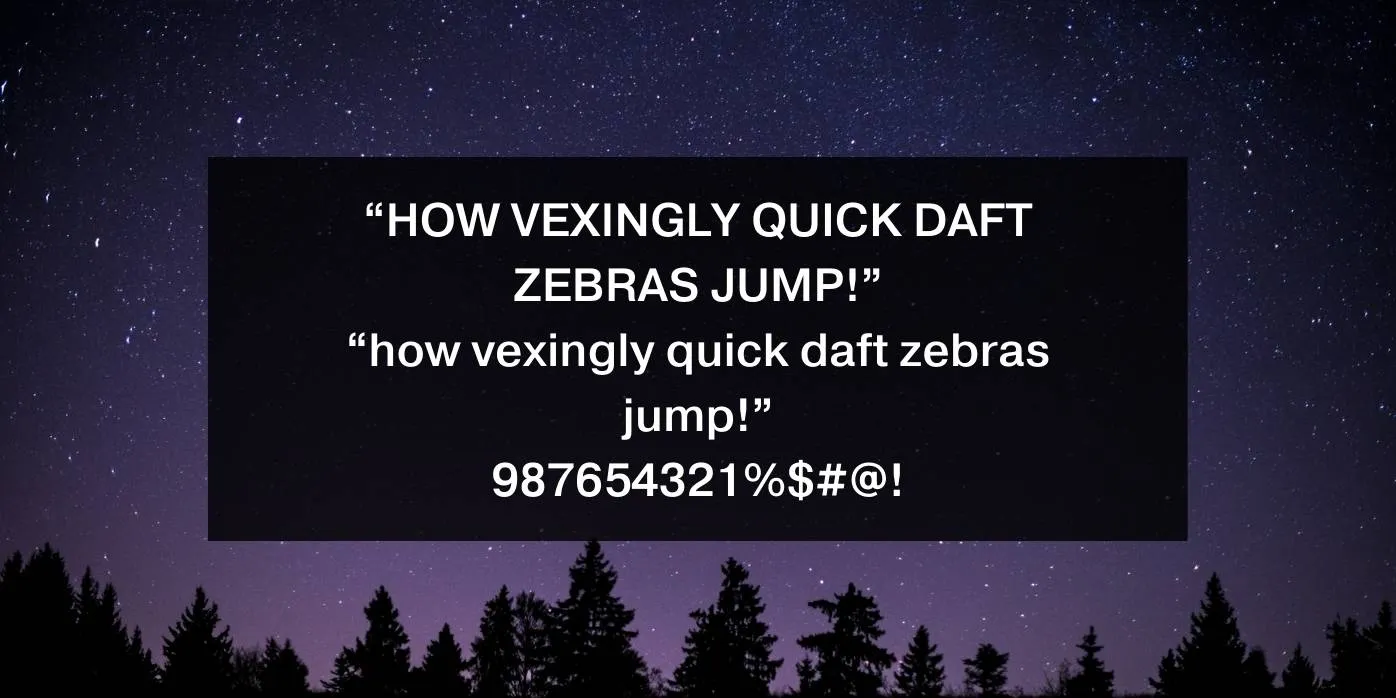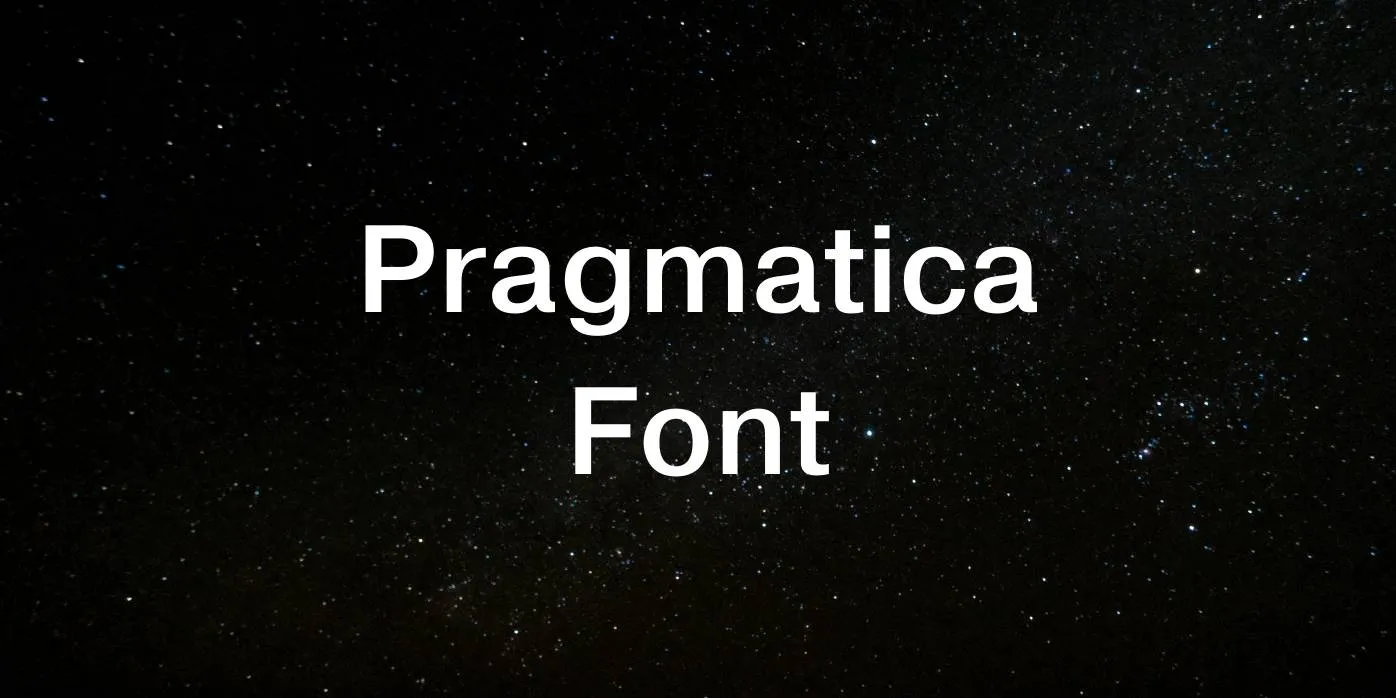
Pragmatica Font
Pragmatica Font is a sans serif typeface that was designed by Vladimir Andreev in the late 1980s. It was released by ParaType in 1990 and is currently used by many companies and organizations, including Microsoft, for a variety of purposes. Pragmatica Font has a simple, modern design that makes it highly legible. It is available in a wide range of weights and styles, making it suitable for use in both body copy and headlines.